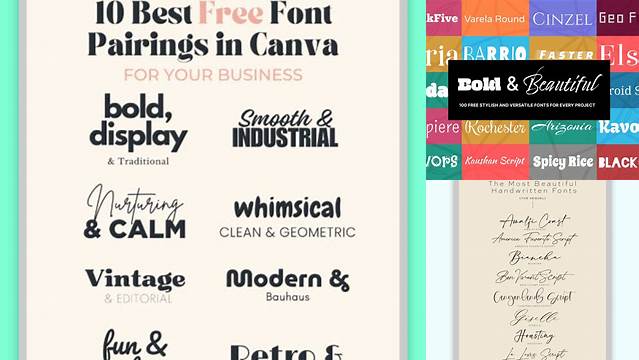
Free Font Packs For Mac: Download Amazing Typography
Hey guys, are you ready to level up your design game? Looking for some amazing fonts to spice things up on your Mac? You're in the right place! We're diving deep into the world of free font packs for Mac, exploring how they can transform your projects, and pointing you to some seriously cool resources. Whether you're a seasoned designer, a student working on a project, or just someone who loves playing around with visuals, having a solid collection of fonts is absolutely crucial. Think of it as your creative toolbox – the more tools you have, the more you can do! Let's get started and unlock some typographic magic together!
Why Free Font Packs for Mac are a Game Changer
Alright, so why should you even bother with free font packs, right? Well, let me tell you, they're a complete game changer! First off, who doesn't love free stuff? These packs are a fantastic way to access a wide range of fonts without breaking the bank. This is especially great if you're just starting out or working on personal projects where budget is a concern. But it's not just about the price tag, folks. Free font packs open up a world of creative possibilities that you might not have even considered before. You can experiment with different styles, find the perfect font to match your project's vibe, and add that extra layer of polish that makes your work stand out.
Imagine you're working on a website design. You could use a sleek, modern sans-serif for your headings, a playful handwritten font for your calls to action, and a classic serif for your body text. With a good font pack, you can mix and match and create a visually stunning experience for your audience. Plus, using a variety of fonts can help you establish a unique brand identity. It's all about the details, and the right font can make all the difference. It's about finding the perfect font to convey your message. From elegant serifs to bold sans-serifs, playful scripts to unique display fonts, the possibilities are endless. So, are you ready to take your design to the next level? Having access to a diverse selection of fonts is like having a secret weapon in your creative arsenal. It allows you to experiment with different styles, find the perfect match for your project's tone, and add that extra touch of polish that makes your work truly shine. It's like having a secret weapon in your creative arsenal. The right font can make all the difference.
Finding the Best Free Font Packs: Our Top Picks
Okay, now for the good stuff! Where do you actually find these amazing free font packs for Mac? Don't worry, I've got you covered. Here are some of my top picks for reliable sources that offer high-quality fonts that won't cost you a dime. First, we have Google Fonts. This is a massive library of open-source fonts that are completely free to use, even for commercial projects. Google Fonts is super easy to navigate, with great search and filtering options. You can sort fonts by style, thickness, and even the languages they support. It's a fantastic resource for web designers, as the fonts are designed to work seamlessly on the web. Another fantastic option is Font Squirrel. This site is all about free, high-quality fonts. They have a great selection of fonts, and they make sure all the fonts are free for commercial use. Font Squirrel also has a font identifier tool that helps you figure out which font is used in an image, which is seriously cool! Next up, we have DaFont. This is another popular choice, but be extra careful when you download fonts from here. Always check the license information, as some fonts may be free for personal use only. The site offers a huge variety of fonts, ranging from classic to quirky, and it's a great place to discover unique fonts. But make sure to double-check the licenses before you use them for commercial purposes. Finally, don't forget about Behance and Dribbble. These platforms are great for discovering new fonts, especially if you're looking for something more unique or designed by independent artists. Sometimes designers will offer free font downloads as part of their portfolio.
When you're browsing these sites, keep an eye out for fonts that catch your eye and match the overall style and feel of your project. Always read the license agreements carefully to make sure you can use the font as you intend. There are also great websites for inspiration. It's all about finding the perfect font to convey your message. From elegant serifs to bold sans-serifs, playful scripts to unique display fonts, the possibilities are endless. So, are you ready to take your design to the next level? Remember to explore and experiment with different fonts until you find the perfect ones for your project.